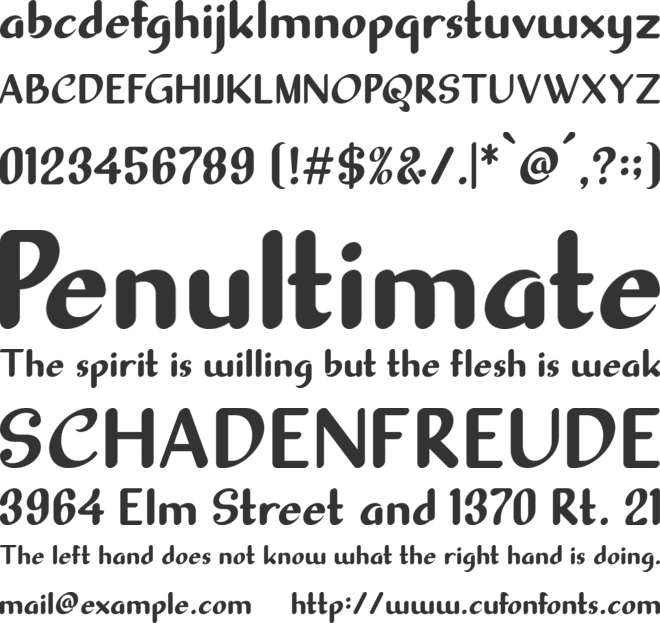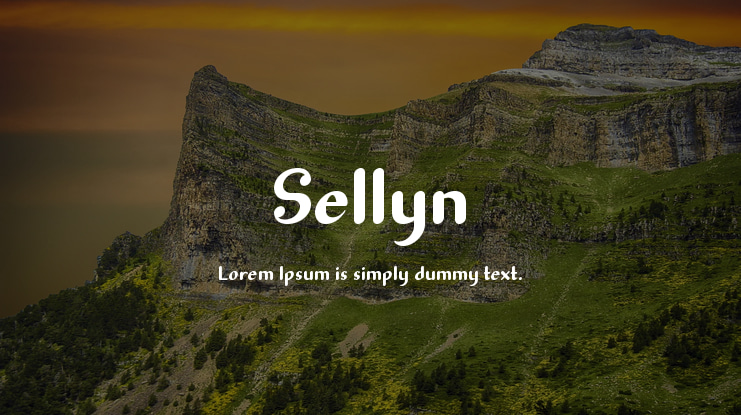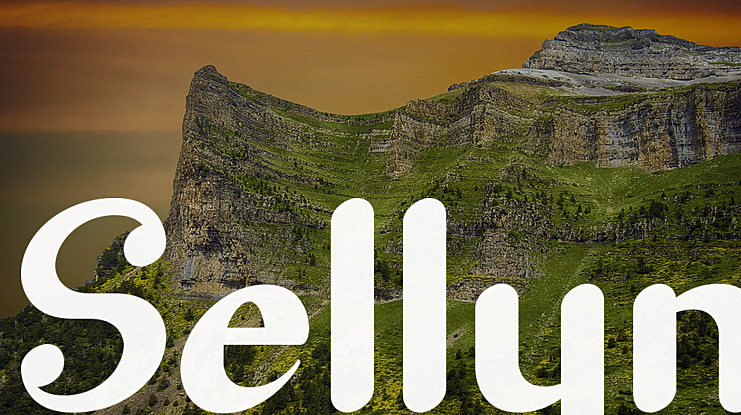
Sellyn Font
Sellyn Beautyful Round Curved Font
Sellyn is a rounded sans serif font with beautyful curves inspired by gentle wind movements.
Sellyn is perfect for use as a cafe logo, Boutique logo, brand fashion, book titles, movie titles, flyers, posters, wedding invitations, and al types of designs that require fonts with beautyful curves.